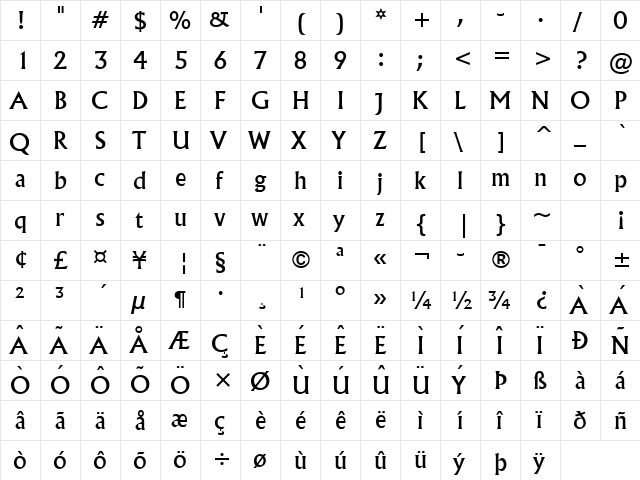
Flair Normal
Design Context for Flair Typeface
Flair offers clean, dependable letterforms without strong stylistic allegiance, making it a practical choice for designers who need flexibility.
Pro Tip: Pair Flair with a font of contrasting weight or personality to build a more expressive typographic hierarchy.